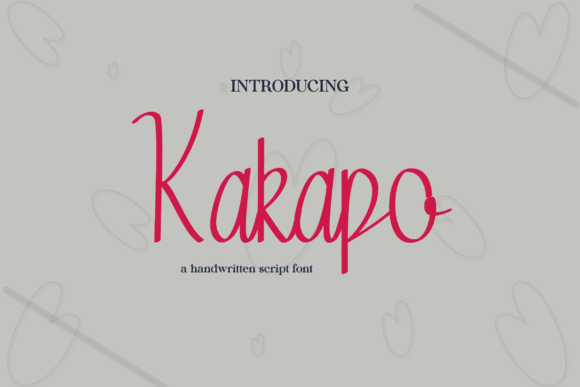
Journey into the world of Kakapo, a font family that dances with enchanting strokes of whimsy and authenticity. Crafted with a keen eye for detail by the illustrious Giuzzan, Kakapo embodies the very essence of individuality, inviting you to infuse your designs with a touch of magic.
Unleash the playful spirit of Kakapo in your creative endeavors, from heartfelt invitations to enchanting logos. Its organic curves and unpredictable lines evoke a sense of spontaneity, while the subtle irregularities add a touch of realism that captivates the eye.
With Kakapo, you'll find yourself immersed in a realm of creativity, where traditional boundaries dissolve into a symphony of artistic expression. Its whimsical nature lends itself perfectly to projects seeking a unique, personal touch, whether it's crafting wedding invitations that reflect your love story's unique charm or creating branding that exudes a sense of intrigue and wonder.
Embrace the uniqueness of Kakapo and elevate your designs to new heights. Let its playful strokes dance across your digital canvas, capturing hearts and imaginations with every letter. Discover the joy of creating designs that resonate with your audience, leaving a lasting impression that whispers of creativity and authenticity.
Immerse yourself in the world of Kakapo, a font family that dances with whimsy and authenticity. Let your creative spirit soar as you explore its endless possibilities, transforming your designs into works of art that captivate and inspire.